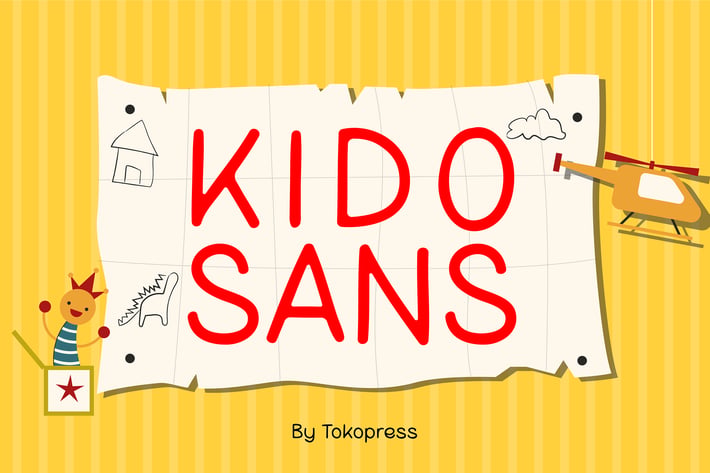
Kids Font - Kidosans
Kidosans – The Playful Font for Kids and Education Brands
KIDOSANS is a child-centric, display typeface designed with soft curves, low contrast strokes, and playful proportions—perfect for making every project feel fun, friendly, and full of wonder. The font’s rounded letterforms and gentle bounce give it an expressive, joyful personality that shines in early learning books, product packaging, or children’s event branding.
With its approachable structure and warm energy, KIDOSANS delivers an ideal visual rhythm for designs where clarity meets creativity. The vibe? Whimsical and welcoming—just like childhood should feel.
Whether you're designing a storybook cover, a preschool brand, kid’s event invitation, or educational material, KIDOSANS brings charm and confidence to your work. This font is more than type—it’s a storytelling tool that captures the innocence, curiosity, and joy of growing up.
Use it to create heartfelt connections through visual design—especially for products or experiences that speak directly to children and their parents.
Key Features
Why KIDOSANS is Loved by Creative Professionals:
- Child-friendly vibe that suits everything from picture books to birthday banners
- Playful, readable, and fun—great for preschool marketing and toys packaging
- Clear letter shapes ideal for early reading and accessible design
- High visual impact with a soft personality
- Works across print and digital, from posters to app interfaces
Make your designs burst with joy and approachability. Whether you’re crafting a children’s app, writing a storybook, or designing a toy label—KIDOSANS will instantly brighten your visuals. Add it to your toolkit today and turn every project into a delightful adventure for little eyes.